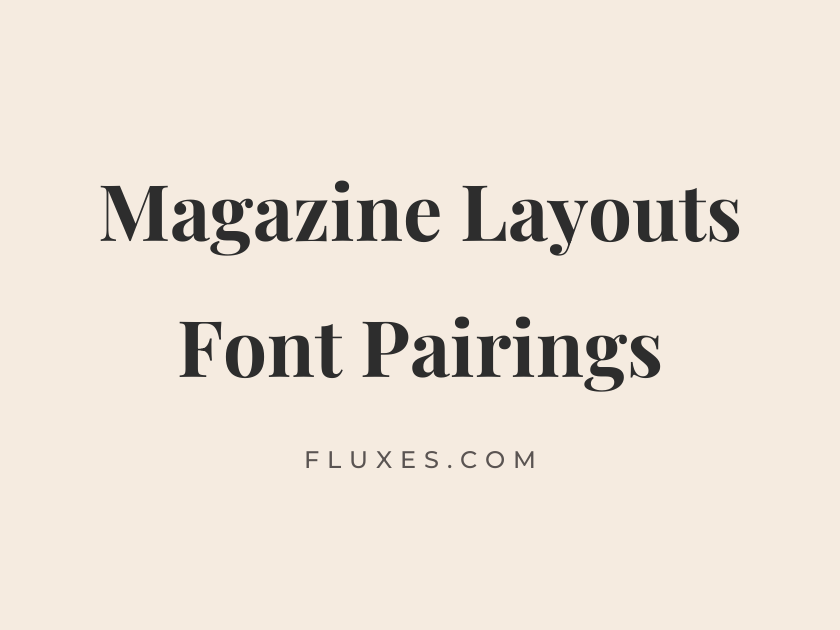
35 Best Font Pairings for Magazine Layouts
Magazine layouts live on contrast: a big, characterful headline over a long run of comfortable reading text. The pairings below balance that tension in different ways, some by combining opposite genres for punch, others by pulling from the same type family so headline and body feel like one considered system. All are free Google Fonts, so any of these font combinations can go straight into a template without licensing headaches.
1. Playfair Display + Source Sans 3
Playfair Display’s high-contrast strokes and sharp serifs give a masthead real editorial weight, while Source Sans 3’s even, low-key structure keeps long features readable at small sizes. The gap in mood between them is exactly the point: one is for looking at, the other for reading.
2. Abril Fatface + Lato
Abril Fatface has the fashion-plate drama of a Didone poster letter, so it needs a body font that stays out of the way. Lato’s rounded, humanist forms do exactly that, making this a reliable choice for fashion and lifestyle spreads.
3. Libre Baskerville + Work Sans
Libre Baskerville was drawn specifically for screen and print legibility, so it already behaves like a workhorse text face when set large as a headline. Work Sans matches its restrained personality without imitating it, which is why this pair reads as considered rather than accidental.
4. Bodoni Moda + Inter
Bodoni Moda carries the sharp vertical contrast of classic fashion mastheads, and Inter’s neutral, engineered letterforms let that drama stay in the headline. This combination suits culture and design magazines that want a serious, gallery-like tone.
5. Cormorant Garamond + Karla
Cormorant Garamond is elegant but light, so it works best paired with a body font that adds some visual weight back in, and Karla’s slightly grounded forms do just that. This is a natural fit for food, wellness, and slow-living titles.
6. Fraunces + Nunito Sans
Fraunces has old-style charm with a contemporary wonkiness built into its curves, and Nunito Sans keeps that personality from tipping into nostalgia. Together they suit lifestyle and interiors magazines aiming for warmth without looking dated.
7. Domine + Mulish
Domine is a sturdy, slab-adjacent serif that reads with authority at headline size, while Mulish keeps supporting text calm and unobtrusive. The pairing suits urbanism, business, and policy features where credibility matters more than flourish.
8. DM Serif Display + DM Sans
DM Serif Display and DM Sans were designed as a matched pair, sharing proportions and rhythm so the transition from headline to body feels seamless. It is a dependable choice whenever a layout needs cohesion more than contrast.
9. Zilla Slab + Public Sans
Zilla Slab’s bracketed serifs give headlines a sturdy, journalistic feel, and Public Sans, built for government and civic use, brings no-nonsense clarity to the text below. Together they fit investigative and long-form journalism layouts well.
10. Spectral + Archivo
Spectral was built for on-screen reading but has enough personality to work as a headline face, and Archivo’s straightforward geometry keeps the page from feeling overwrought. This suits history, archive, and literary features.
11. PT Serif + PT Sans
PT Serif and PT Sans were released together as a superfamily, so their x-heights and spacing already agree with each other. This makes the pair an easy, low-risk choice for news-style magazine sections.
Check x-heights and letter spacing side by side before committing; two fonts with wildly different reading sizes rarely sit well on the same page.
When in doubt, reach for a superfamily like PT Serif and PT Sans, or DM Serif Display and DM Sans. Shared proportions solve most pairing problems automatically.
Limit a single layout to two typefaces plus their weights. Magazine pages already carry enough visual noise from photography and grids without a third competing voice.